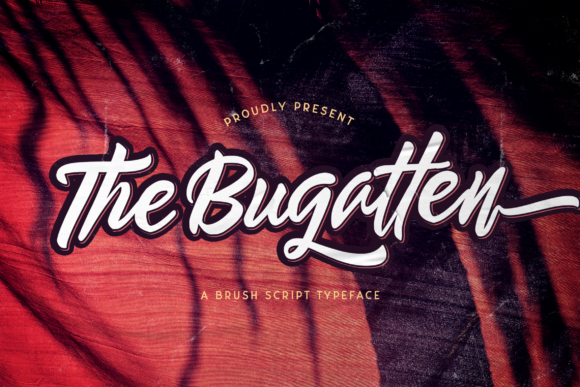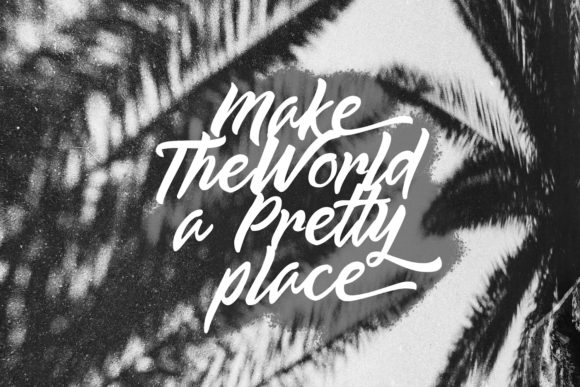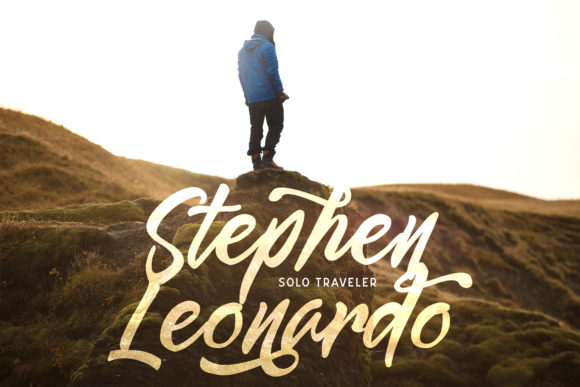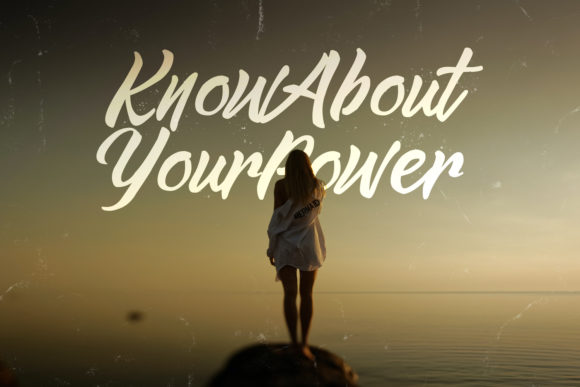
About The Bugatten Font
“The Bugatten” is a bold and distinctive script font that exudes a unique vintage charm. Its retro appeal and bold appearance make it a versatile choice for various design projects. Here are some creative ideas on how to make the most of “The Bugatten” font in your designs:
1. Branding: Use “The Bugatten” to create a bold and memorable brand identity for businesses that want to stand out from the crowd.
2. Headings and Titles: Make headings and titles pop with the bold and vintage look of “The Bugatten,” grabbing the attention of readers.
3. Logos: Design stylish and eye-catching logos using the unique vintage elements of “The Bugatten,” adding a touch of nostalgia to brand marks.
4. Labels and Packaging: Apply “The Bugatten” to product labels and packaging designs to evoke a sense of classic elegance and vintage charm.
5. Signage and Posters: Create attention-grabbing signage and posters with the bold and expressive strokes of “The Bugatten.”
6. Social Media Graphics: Elevate your social media posts with the unique vintage style of “The Bugatten,” giving your content a nostalgic touch.
7. Invitations and Greeting Cards: Design elegant and distinctive invitations or greeting cards for special occasions, capturing the essence of the past.
8. Typography Art: Create stunning typography art using “The Bugatten,” combining the vintage feel with inspiring quotes and phrases.
9. Book Covers: Use “The Bugatten” to design book covers that transport readers to a bygone era, setting the tone for the story inside.
10. Website Headers: Add a touch of vintage elegance to your website headers and banners using “The Bugatten.”
11. Apparel Design: Apply “The Bugatten” to t-shirt designs, creating a unique and timeless look for fashion items.
12. Menu Design: Use “The Bugatten” to design menus for restaurants and cafes, giving them a classic and sophisticated touch.
13. Packaging Design: Incorporate “The Bugatten” into packaging designs for vintage-inspired products, attracting customers with its unique style.
14. Magazine Layouts: Enhance magazine layouts with the vintage charm of “The Bugatten,” giving the publication a classic appeal.
15. Art Prints: Create art prints with a vintage touch using “The Bugatten,” making them ideal for home decor or gifting.
“The Bugatten” with its bold script and vintage look is a font that can take your design projects to the next level, giving them a timeless and distinctive appeal. Whether for branding, headings, labels, or any other creative endeavor, this font’s unique charm will surely leave a lasting impression!